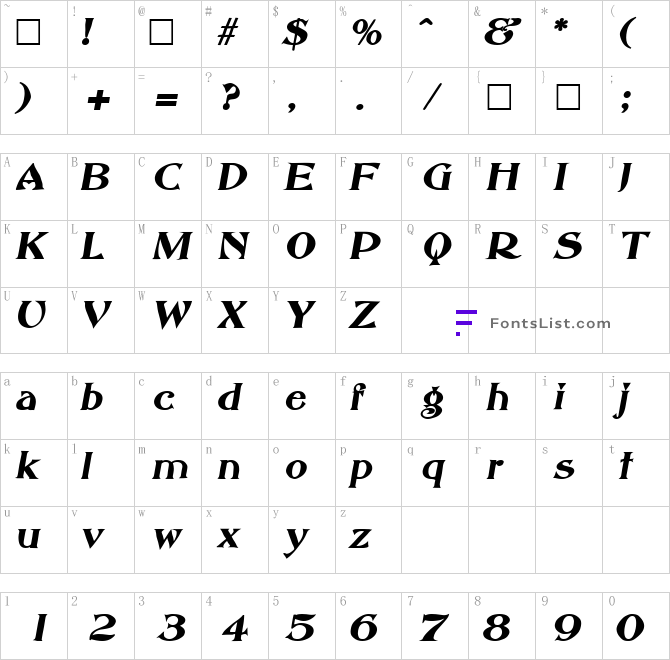
- Font Name:AbottOldStyle
AbottOldStyle-Bold-Italic.ttf is a very beautiful artistic font, AbottOldStyle-Bold-Italic.ttf is widely used in the design and printing of various books and pictures,AbottOldStyle-Bold-Italic.ttf has a strong visual impact,AbottOldStyle-Bold-Italic.ttf is a commonly used font in newspapers, magazines and books, and is used in posters, e-commerce Poster design, store design, logo design, font design and other fields.AbottOldStyle-Bold-Italic.